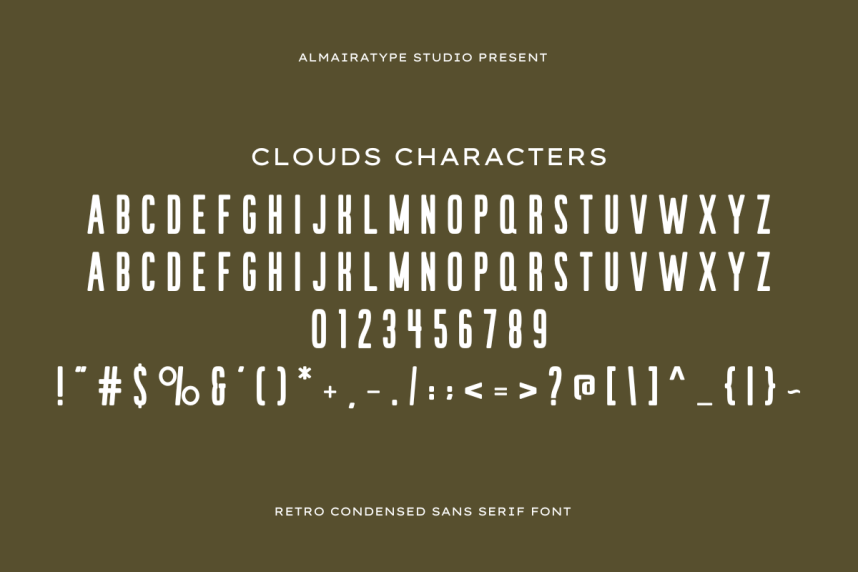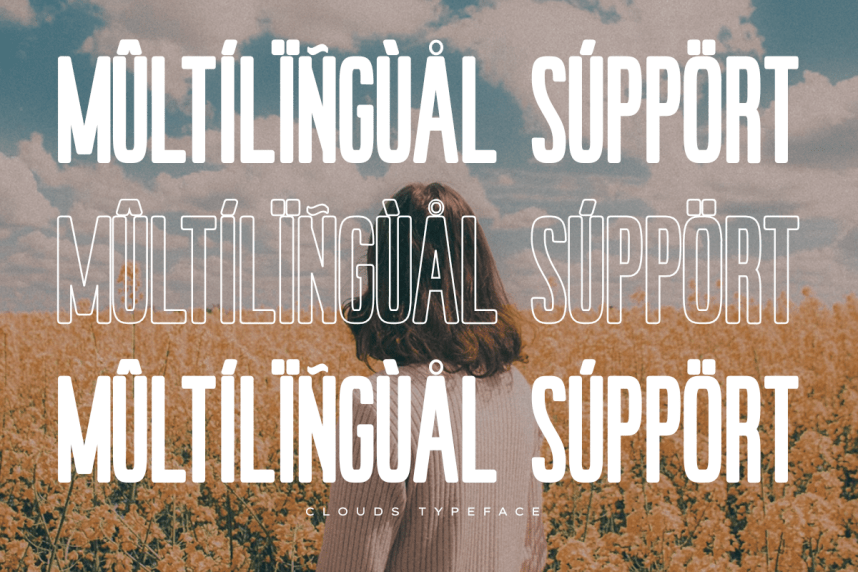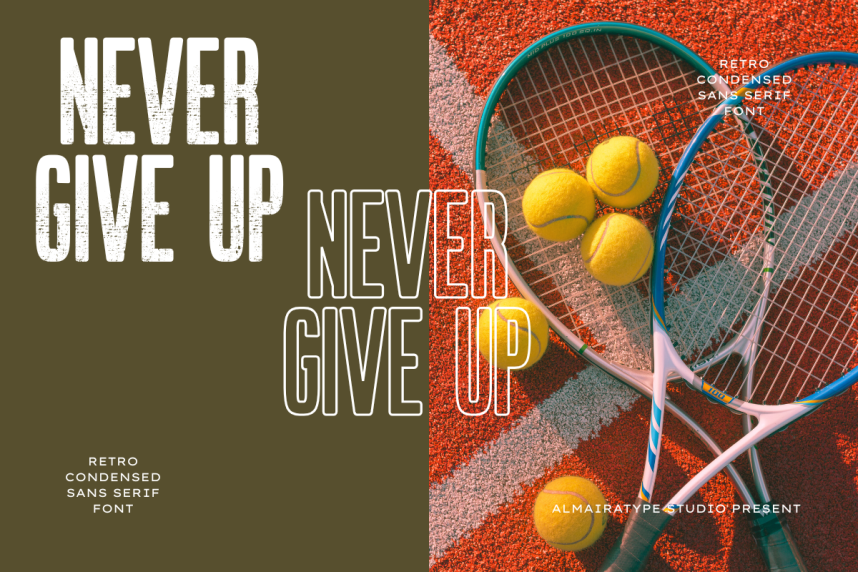
Clouds Font
Clouds Font is a bold and versatile Retro Condensed Sans Serif font that effortlessly blends vintage nostalgia with modern minimalism. Designed for high-impact visuals, its tall, clean structure commands attention while maintaining a sleek and professional elegance. This typeface is the perfect choice for designers looking to add a touch of timeless character to headlines, movie posters, magazine editorial layouts, and brand identities. Whether you are creating social media graphics, trendy apparel designs, or eye-catching logos, Clouds provides excellent readability and a unique, stylish flair. Its soft, slightly rounded edges give it a warm, approachable feel reminiscent of classic 70s and 80s typography, making it an essential asset for any creative toolkit. Elevate your next project with the distinct and commanding presence of the Clouds typeface.